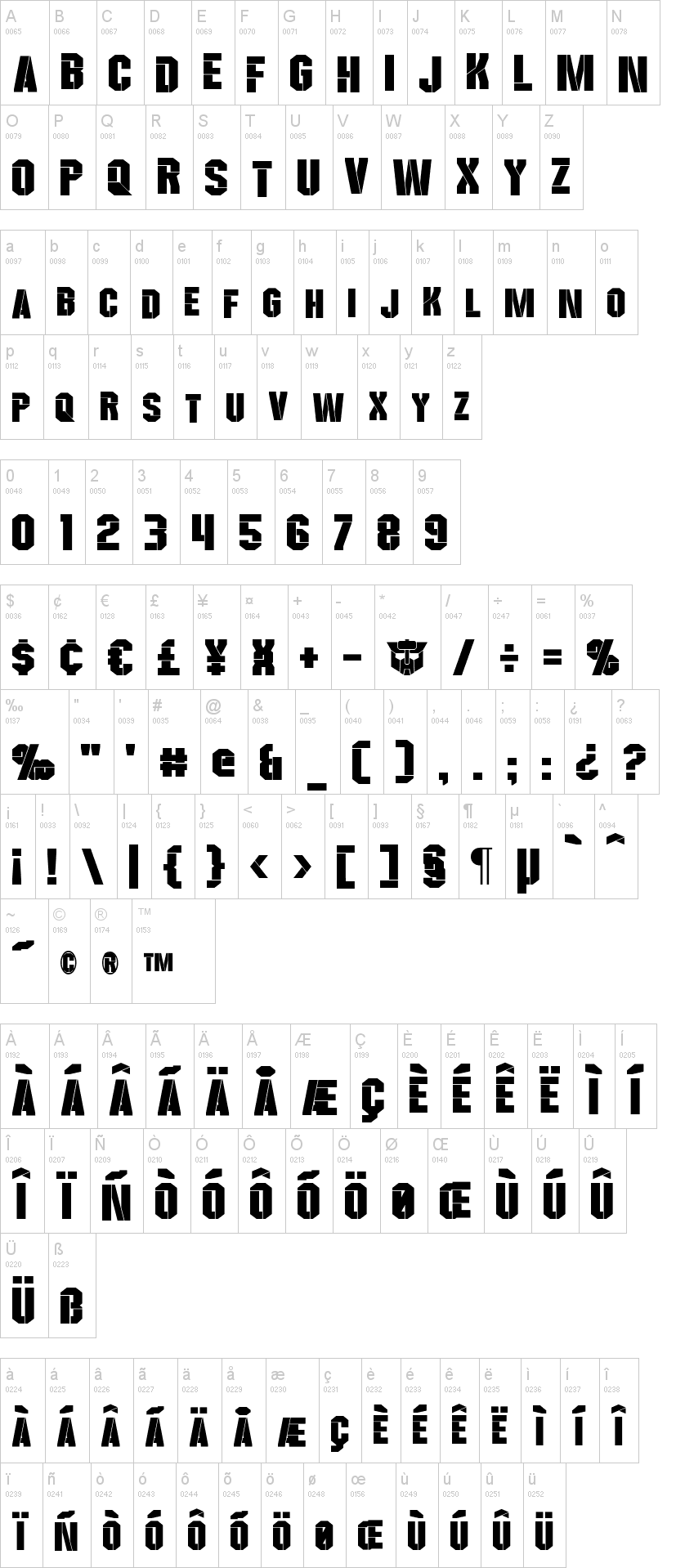
Wreckers Italic.otfNote of the authorThis irregular stencil-based typeface is based on the title logo of IDW Publishing's "The Last Stand of the Wreckers" Transformers comic. Includes full alphabet, extended punctuation, Euro. Includes italic version.